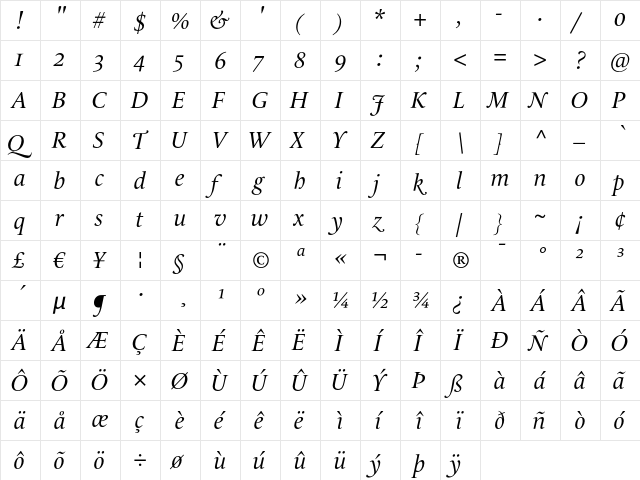
LeMonde Livre Classic Medium Font Preview
LeMonde Livre Classic Medium
Design Context for LeMonde Livre Classic Typeface
LeMonde Livre Classic wears its vintage influences proudly, with letterforms that recall mid-century signage, classic packaging, and nostalgia-driven design.
Ideal for diner signage, record shop branding, 70s/80s-themed projects, and heritage product labels.
Font Pairing: Combine LeMonde Livre Classic with a simple slab or neutral sans — period-accurate companions reinforce the vintage feel without competing for attention.
Pro Tip: Lean into LeMonde Livre Classic's period character by pairing it with aged paper textures, muted colour palettes, and vintage illustration styles.